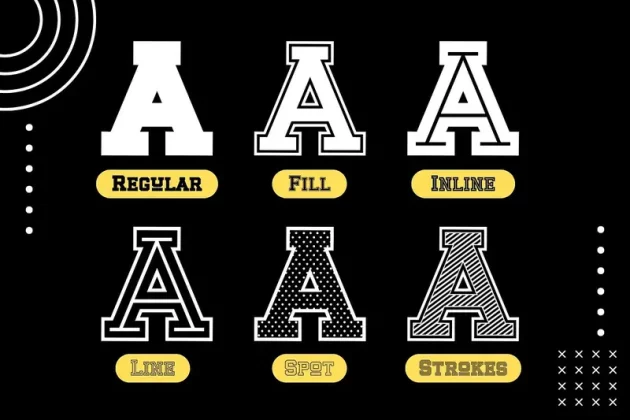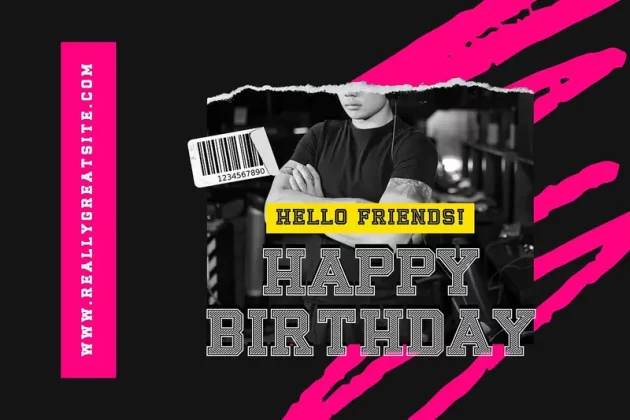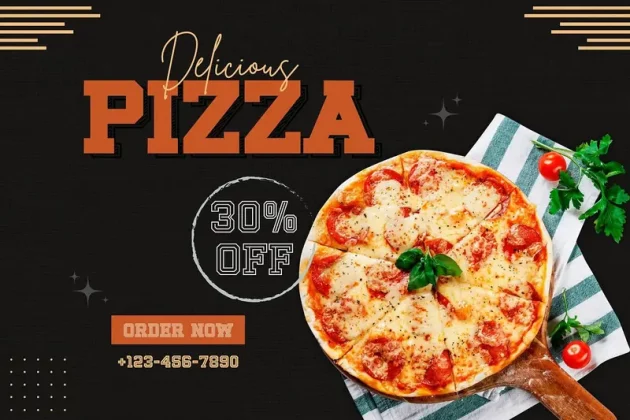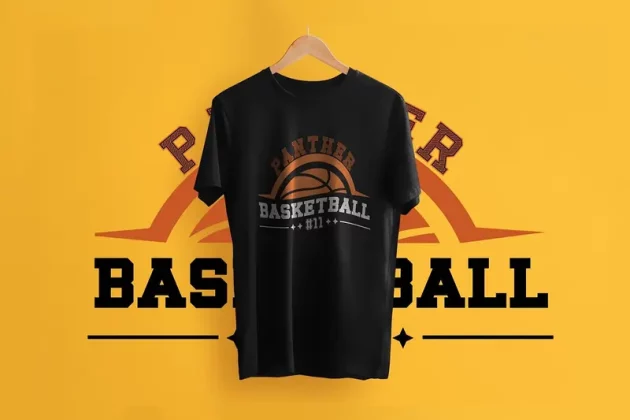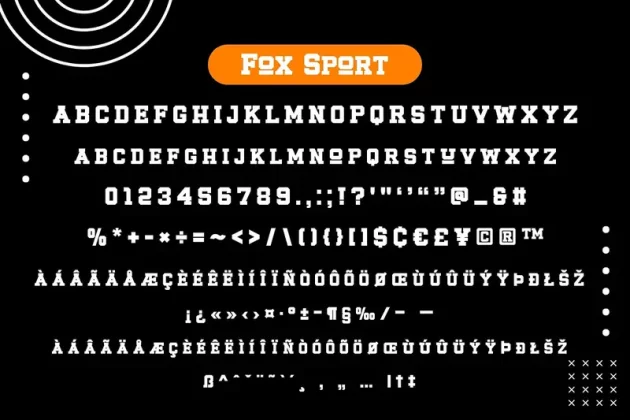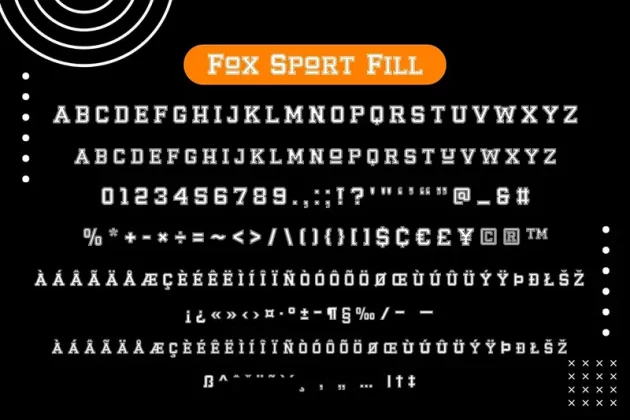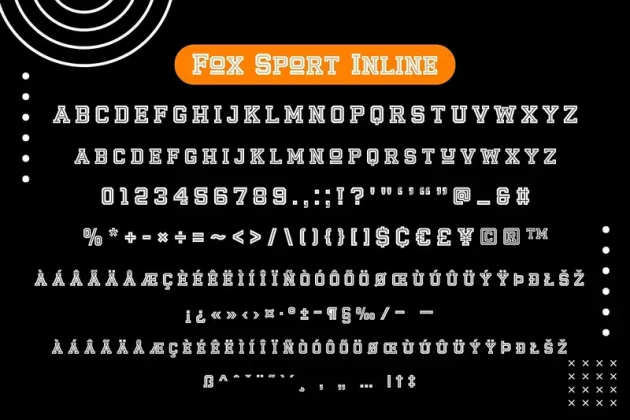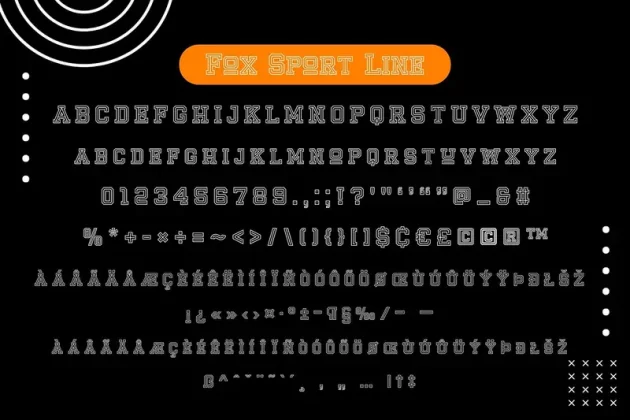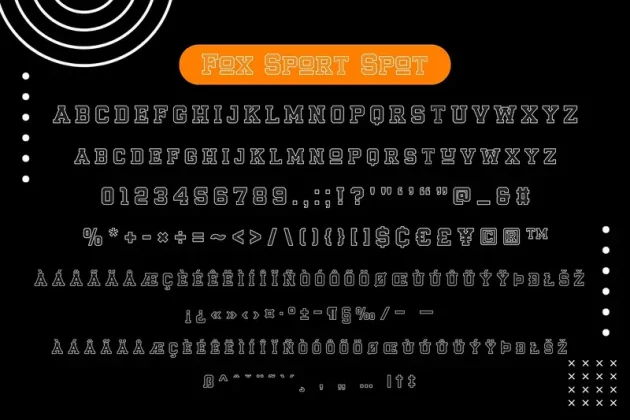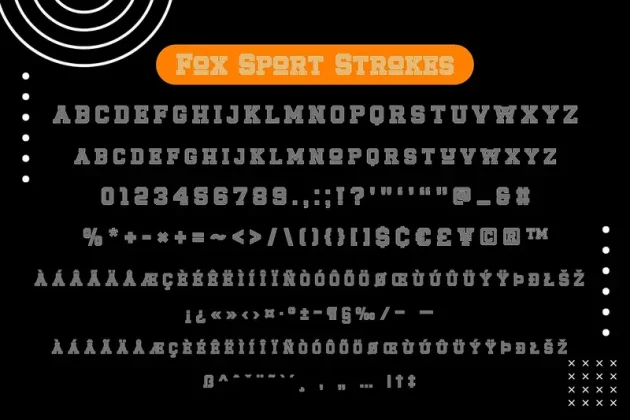
Fox Sport 6 Fonts Style Font
About Fox Sport 6 Fonts Style Font
Fox Sport is a 6 style font that bold and condensed slab serif font with classic and modern aesthetic style that adds a captivating and energetic touch to your designs. Perfect for use in publications, menus, logos, business cards, or even printed on t-shirts, these fonts exude uniqueness. Its main feature is its vibrant and expressive design, allowing you to create attention-grabbing headlines, t-shirt typography, banners, product labels, and more.